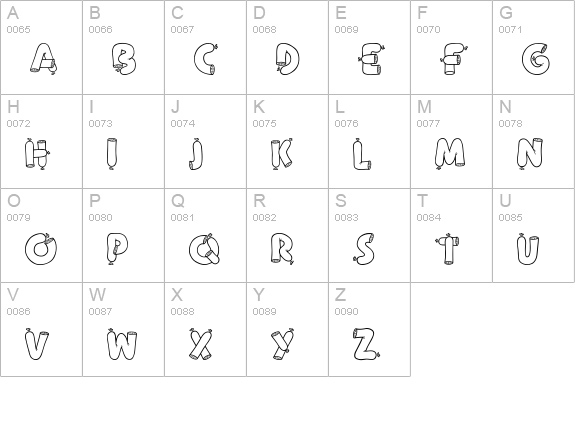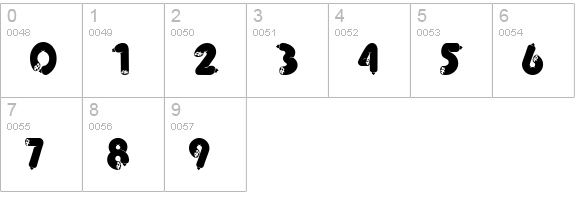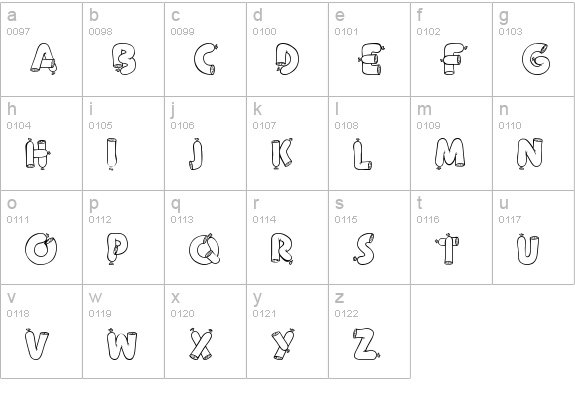
Alpha Sausage Font Details
Introducing Alpha Sausage font - a bold and quirky typeface that brings a unique twist to your designs. With its playful and dynamic style, Alpha Sausage is sure to catch the eye and add personality to any project. This font is perfect for headlines, posters, branding, and more, allowing you to make a statement with your typography. What's even better is that Alpha Sausage is completely free to download at FontsMarket.com. Yes, you read that right - this versatile font can be yours at no cost, making it accessible for all your creative endeavors. So why wait? Add a touch of fun and creativity to your designs with Alpha Sausage font today!